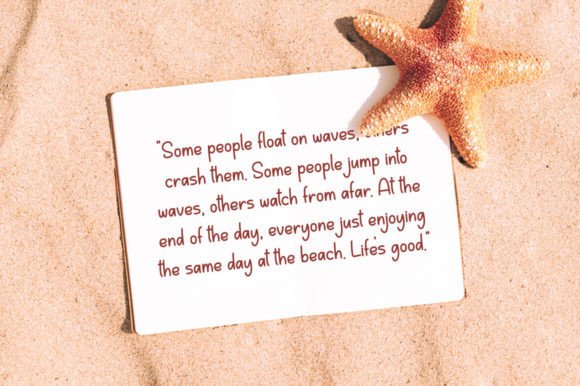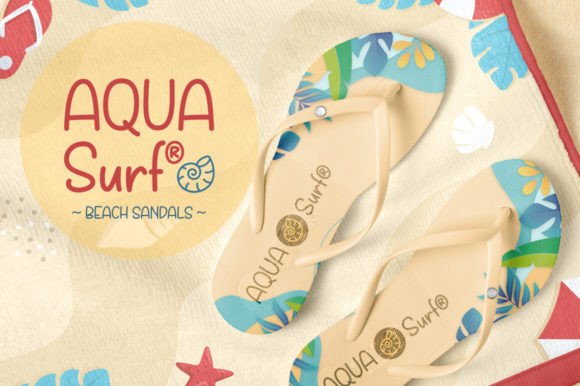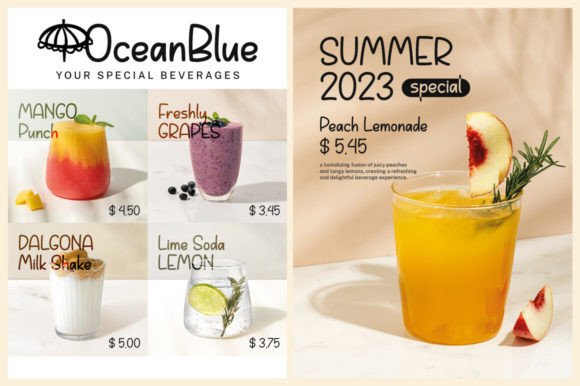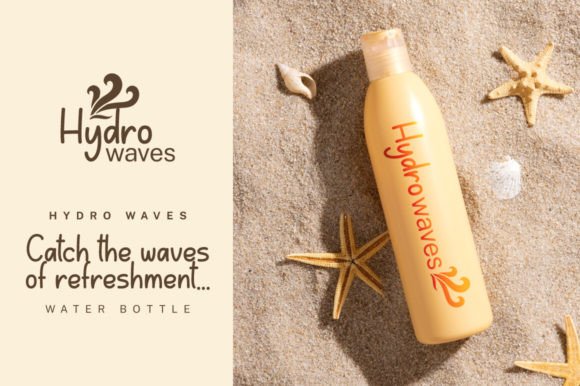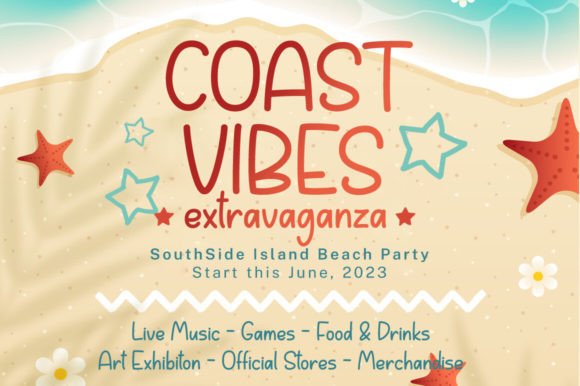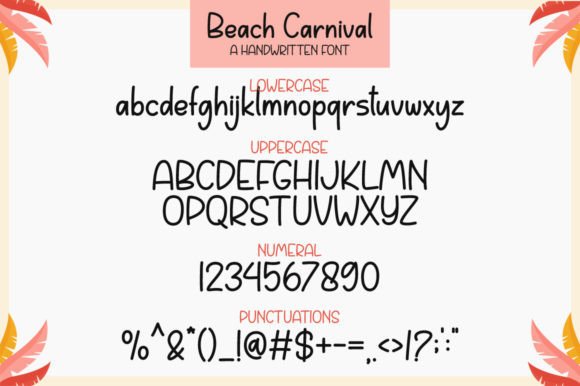
Getting Your Creative Fix: Introducing Beach Carnival Font
Have you ever found yourself strolling along the beach, watching the sunset, and suddenly struck by a brilliant idea for your next design project? For many creatives, the beach is a source of inspiration, and the feeling of being surrounded by the ocean’s soothing sounds and salty air can be just what we need to get our creative juices flowing.
When it comes to bringing those ideas to life, the right font can make all the difference. That’s where Beach Carnival Font comes in – a lovely and timeless handwritten font that’s perfect for creating eye-catching logos, branding, and quotes. Whether you’re a seasoned designer or just starting out, Beach Carnival Font is a valuable addition to your toolkit.
Beach Carnival Font Key Features
- Unique Characteristics: This font features a playful, carnival-inspired design with bold lines, vibrant colors, and intricate details, perfect for creating eye-catching designs.
- Script and Font Style: Beach Carnival Font includes various script and font styles, including regular, bold, italic, and bold-italic, offering versatility in design applications.
Beach Carnival Font Review
At first glance, Beach Carnival Font seems like the perfect combination of fun and elegance. I immediately fell in love with its ✨ playful, handwritten feel that screams “summer vibes”. The font is perfect for designing projects related to beach, travel, or outdoor activities. Its ✨ creative, hand-painted style adds a personal touch that makes the text feel more authentic.
Here are some things that I particularly enjoy about this font:
- ✨ Unique, handwritten feel that sets it apart from other fonts
- ✨ Perfect for designing projects related to beach, travel, or outdoor activities
- ✨ Great for adding a personal touch to your designs
- ⚠️ May not be suitable for formal or professional projects
- ⚠️ Can be difficult to read at small font sizes
Overall, I would give Beach Carnival Font 4 out of 5 stars. It’s a great choice for designers looking to add a playful, creative touch to their projects. However, it’s essential to consider its limitations and use it wisely.
The Beach Carnival Font is perfect for creating a fun and playful atmosphere. Use it for:
- Birthday invitations and party decorations.
- Summer-themed posters and flyers.
- Children’s book covers and illustrations.